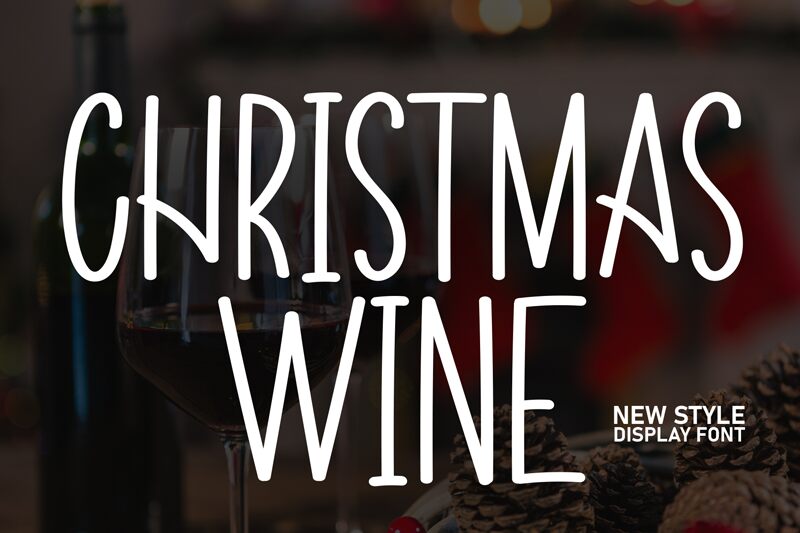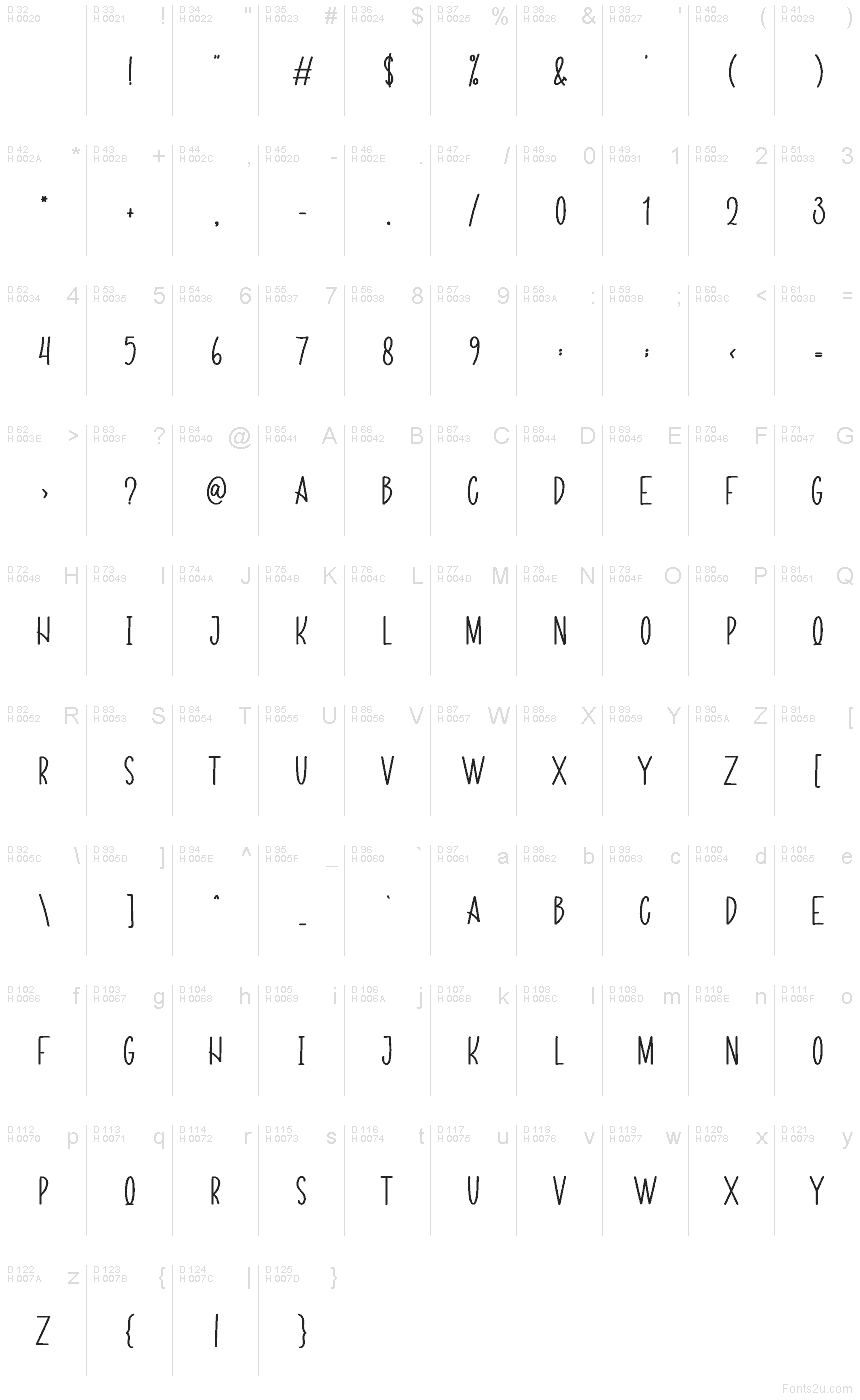
Christmas Wine
Christmas Wine font by Andi Moz is a free brush typeface with tall, narrow letters that look like they’ve been drawn with an inky marker on textured cardstock. The strokes are slightly irregular and gently wobbly, giving words a cozy, handwritten energy without becoming messy or hard to read. It feels festive and a bit whimsical, like notes scribbled on homemade gift tags or labels on a small-batch bottle of mulled wine.
Using Christmas Wine, headlines instantly pick up a warm, personal touch that works beautifully for holiday cards, gift packaging, party invitations, DIY printables, social media graphics, and seasonal branding. This free font really shines when set large and generously spaced, letting its slender forms breathe. Pair it with a clean sans serif for body text to keep layouts charming but still easy to navigate.